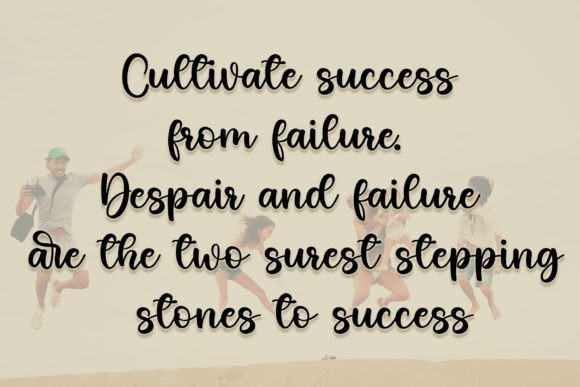
Add Joy and Romance with Sahara Font
Sahara Font is a sweet and cursive handwritten typeface designed to bring joy and romance to your creative works. This gentle font looks beautiful on many different projects. Whether you create invitations, greeting cards, posters, or social media graphics, Sahara Font will make your designs shine. Its smooth, flowing strokes add warmth and charm. Plus, it creates a romantic feeling that touches your audience.
Versatile Uses for Sahara Font
You can use Sahara Font for many types of projects, such as:
Wedding invitations and event stationery
Greeting cards and thank-you notes
Posters and flyers
Social media content and digital designs
Branding and logos with a soft touch
Personalized crafts and DIY projects
Thanks to its sweet and cursive handwritten style, SaharaFont adds elegance and a personal touch to your creative ideas.
The font features balanced kerning and good spacing, so your text stays clear and beautiful in any size or format.
Why Designers Choose Sahara Font
Designers and creatives love SaharaFont because it combines sweetness with elegance. It adds a joyful and romantic flair that enhances any project. Whether you’re a professional or a hobbyist, SaharaFont helps you make beautiful, memorable typography with ease.
Use SaharaFont to bring joy, romance, and warmth to your next design.